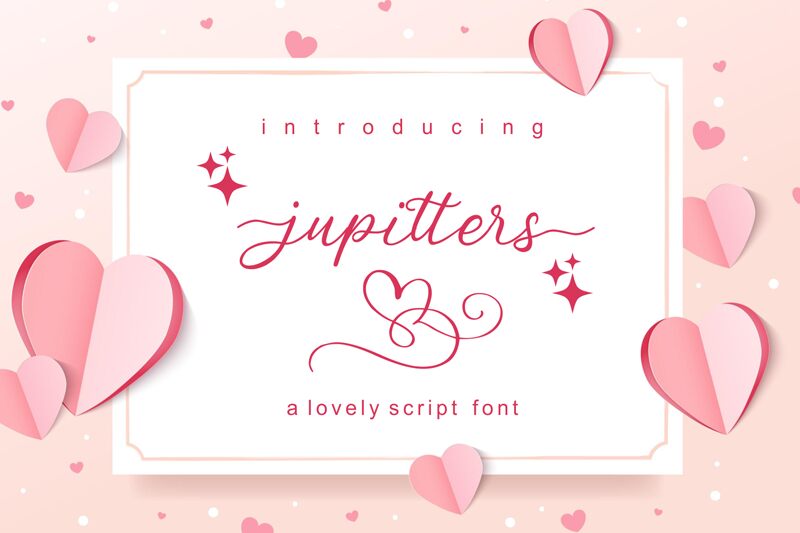
Jupitters, a captivating calligraphy font designed by zamjump, adds an enchanting touch to any project. Its semi-light weight creates an elegance that is perfect for wedding invitations, love letters or romantic quotes. With its graceful curves and flowing strokes, Jupitters brings sophistication to branding materials such as logos and packaging. This versatile font type also enhances book covers, giving them a timeless charm. Whether you're designing greeting cards or creating stylish social media graphics, Jupitters is the ideal choice for adding a touch of artistry and refinement to your projects.